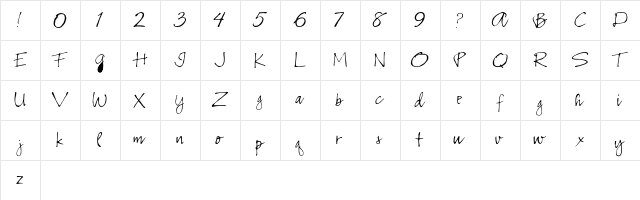
Edgewater 2 Regular
Design Context for Edgewater 2 Typeface
Edgewater 2 takes a measured approach to typography — its balanced proportions and neutral character make it a reliable workhorse for both digital and print work.